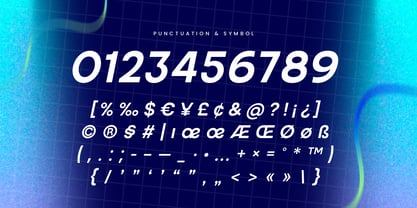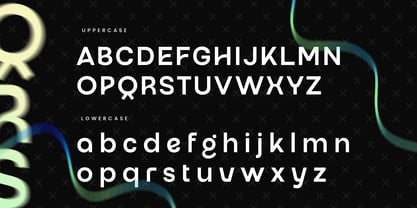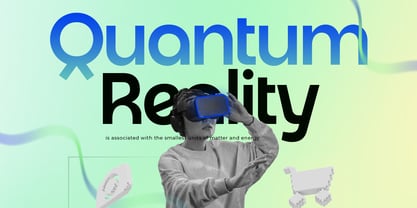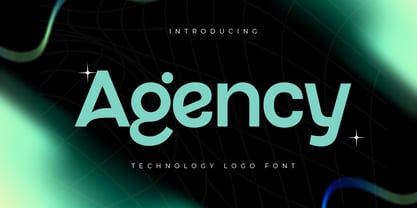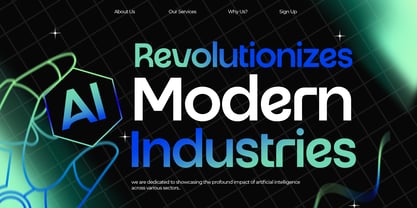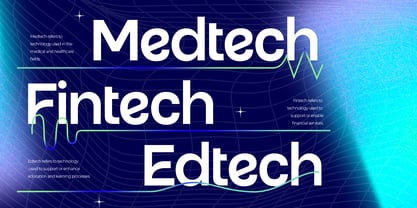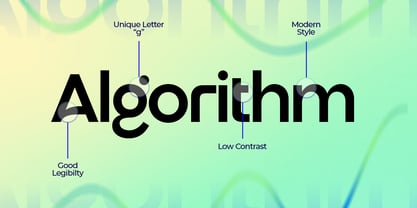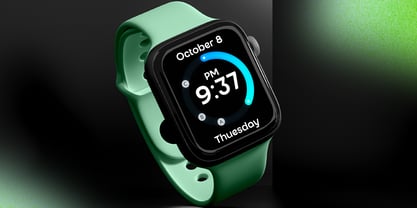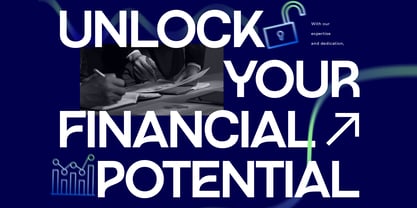
Agency SS
von Sensatype Studio
Die Schriftfamilie Agency SS wurde von Zamroni Hamzah entworfen und von Sensatype Studio veröffentlicht. Agency SS enthält 2 Stile und Familienpaketoptionen. Mehr über diese Familie
Agency - Technology Logo Font
Agency is the ultimate font for combining technology and branding into a sleek, modern logo. Crafted to meet the demands of contemporary business and tech industries, it offers a clean and professional look that stands out in any application. Ideal for logos, websites, and branding materials, Agency provides a distinctive, futuristic edge.
Inspired by cutting-edge technology and high-impact branding, Agency delivers a unique style that makes your design memorable. Its versatile features make it suitable for various professional uses, ensuring that your brand conveys both innovation and reliability.
Whether you're working on a tech startup or a corporate rebranding, Agency supports your vision with its comprehensive character set and OpenType features. It’s designed to enhance your projects with a strong, cohesive identity.
Agency Technology Logo Font Features:
• Unique Characters Ready
• Punctuation, Number, and Symbol
• Uppercase and Lowercase
• Multilingual Support
• Opentype Features
Designer: Zamroni Hamzah
Foundry: Sensatype Studio